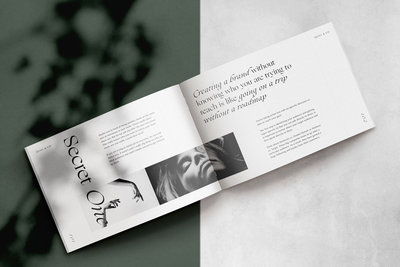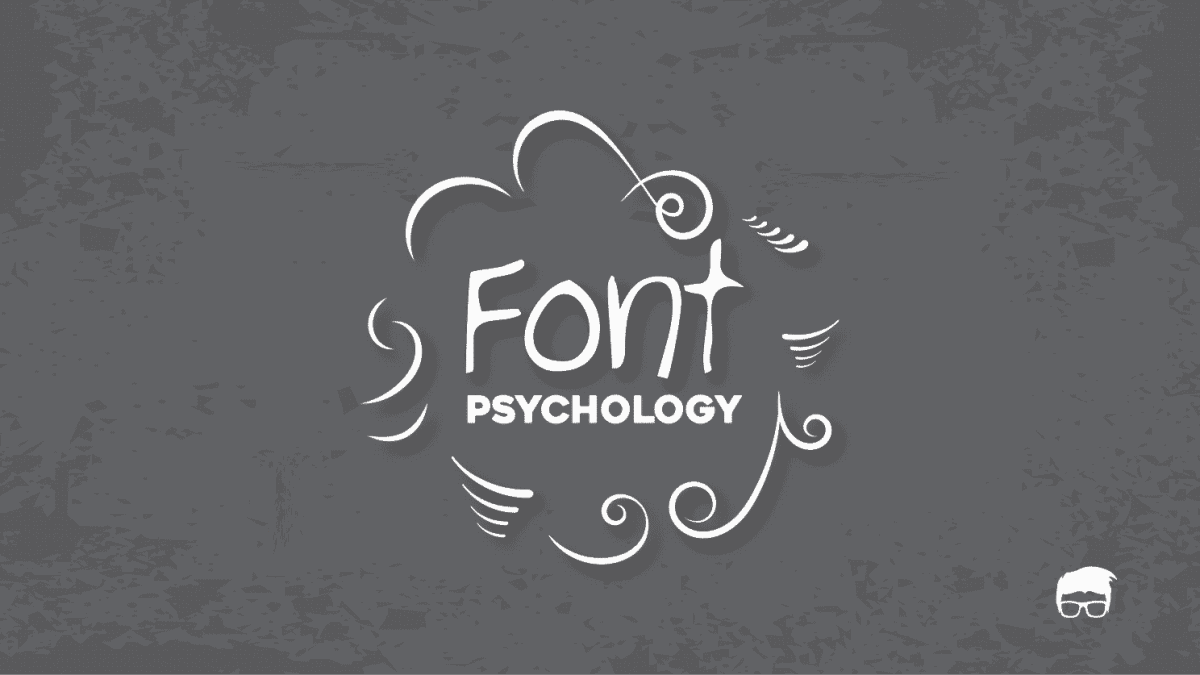
Today, these sans serif fonts are used in blogs and online articles in newspapers with large bodies of text, because their legibility on screen is really good. This font is equipped with uppercase, lowercase, numbers, punctuation, and several variations on each character. I am often confused when which font family is more appropriate. Available for personal & commercial. The serifs make it easy for the eye to. All the fonts you need. The best selection of sans serif fonts for windows and macintosh.
On the other hand, there are also sturdy serif faces that.
We'll discuss that in more depth later, so keep on reading.
It is suitable for many types of georgia is an elegant serif font.
Font Licences Reinvented Different Audiences Different Needs Fabio Haag Type. There are many exceptions to this, but that is the most common usage. There are advantages to using both serif & sans serif fonts in different designs. Browse by alphabetical listing, by style, by author or by popularity. This font is equipped with uppercase, lowercase, numbers, punctuation, and several variations on each character. You can use these fonts to create custom styles. I am often confused when which font family is more appropriate. Google fonts now supports variable fonts. 1 2 3 4 5 6 7 8 9 10. On the other hand, there are also sturdy serif faces that. These serif fonts are typically used in newspapers, because they make reading quick and easy. Bonange basic serif font is a bold and elegant serif font. Archive of freely downloadable fonts. One major exception is web. Serif fonts are a great choice for more traditional businesses (like law practices, financial firms, or insurance companies) and for more. Take and they are very well suited for text usage.
Today, these sans serif fonts are used in blogs and online articles in newspapers with large bodies of text, because their legibility on screen is really good.
Brand Fonts Psychology Choosing Brand Fonts That Connect With Your Audience Quillandco Design. Serif fonts are a great choice for more traditional businesses (like law practices, financial firms, or insurance companies) and for more. This font is equipped with uppercase, lowercase, numbers, punctuation, and several variations on each character. Bonange basic serif font is a bold and elegant serif font. 1 2 3 4 5 6 7 8 9 10. One major exception is web. You can use these fonts to create custom styles. Google fonts now supports variable fonts. These serif fonts are typically used in newspapers, because they make reading quick and easy. I am often confused when which font family is more appropriate. There are advantages to using both serif & sans serif fonts in different designs. Archive of freely downloadable fonts. On the other hand, there are also sturdy serif faces that. Take and they are very well suited for text usage. There are many exceptions to this, but that is the most common usage. Browse by alphabetical listing, by style, by author or by popularity.
Browse by alphabetical listing, by style, by author or by popularity. 128 downloads free for personal use. It is very readable at different font sizes, so it is a good candidate for. If a buggy browser attempts to use a font that doesn't exist. The serifs make it easy for the eye to. They are also used in small texts, titles, captions… Serif fonts are used for body text because they are very easy to read. Archive of freely downloadable fonts. Available for personal & commercial. Designers have thousands of typefaces to choose from and step one is choosing between fonts that have serifs and fonts that don't.